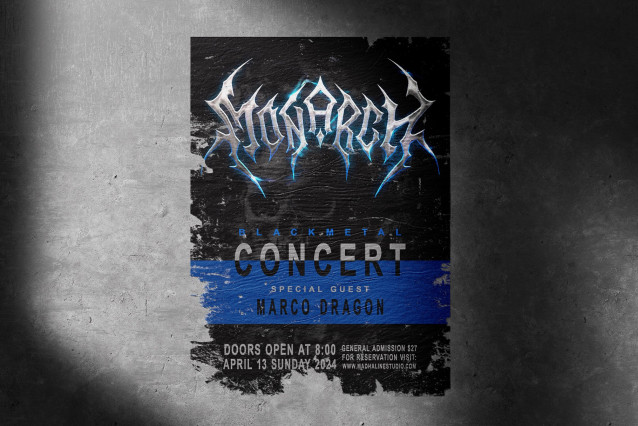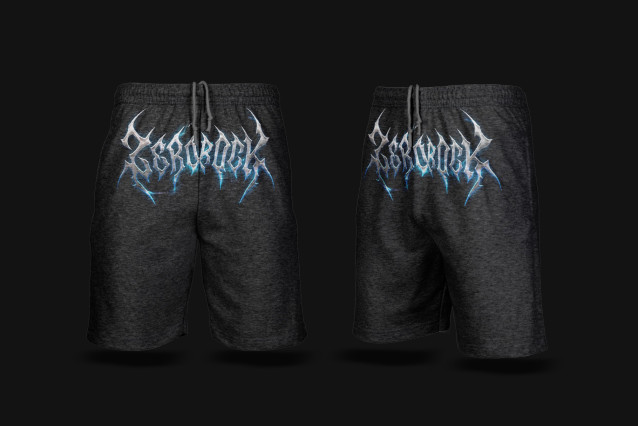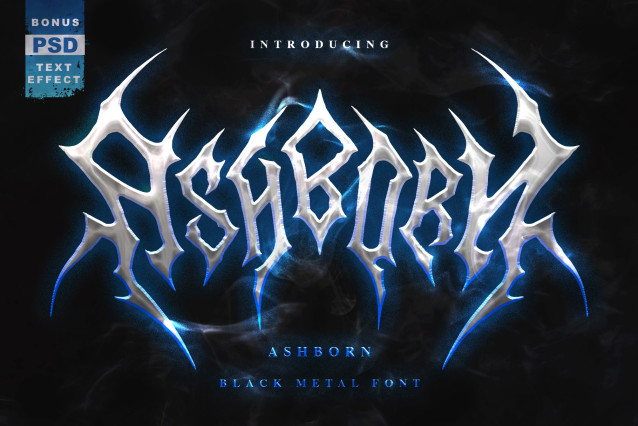
Ashborn Black Metal Font
Ashborn Black Metal Font is a blackmetal font that has a realistic blackmetal logo feel. This font is rich in variations, inspired by blackmetal band logos. This font combines a symmetrical left-right flip style for each character and the letters are connected to each other with a sticky liquid effect, giving the impression of horror, cool and frightening. The Ashborn font is suitable for band logos, merchandise, apparel, song titles, game titles, and film titles.